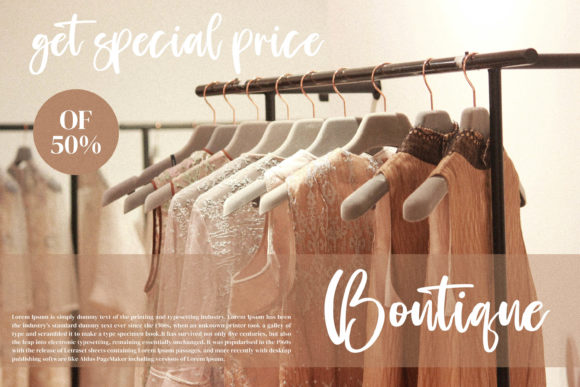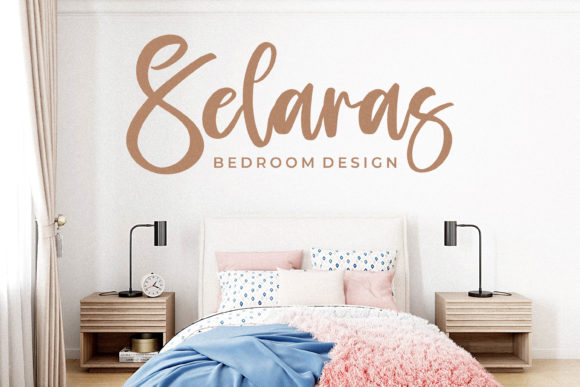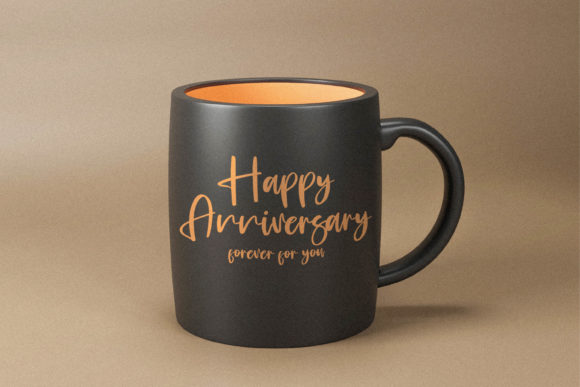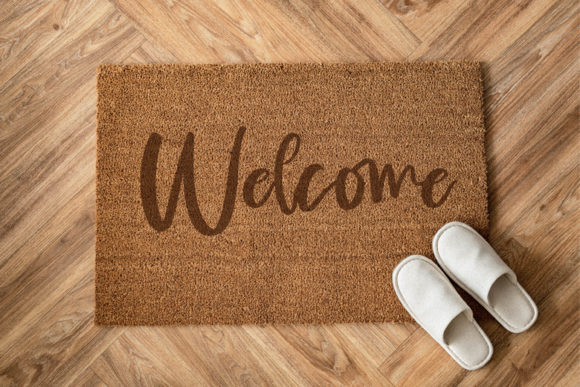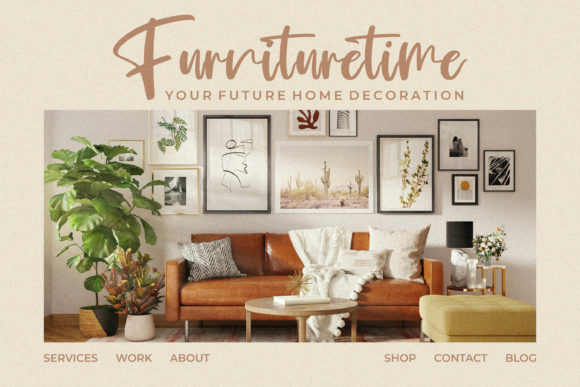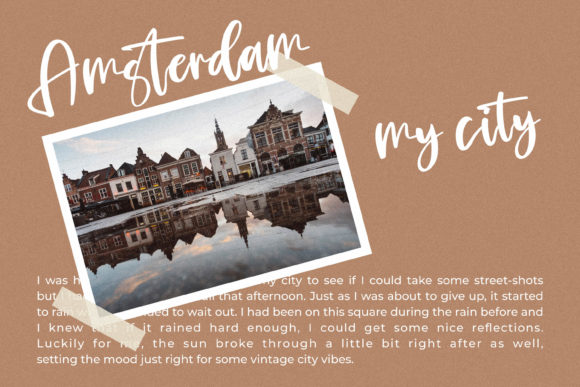
Introduction to Jarchook Font
Remember the moment when you stumbled upon that perfect design element that took your project to the next level? For many of us, it’s a feeling of excitement and satisfaction that comes with discovering a high-quality design resource that elevates our creative vision. For designers, this moment often involves the perfect font – one that embodies confidence, versatility, and style. If you’re looking for that elusive font that makes your project stand out, look no further than the Jarchook Font.
This chic, trendy script font is more than just a pretty face; it’s a valuable addition to any designer’s toolkit. With its stylish alternates and ligatures, Jarchook Font is the perfect match for any creative project, from logos to brochures, and everything in between.
Key Features of Jarchook Font
- Designed to be highly versatile, the Jarchook Font can be used for a variety of applications, from print materials to digital displays.
- Features a unique blend of modern and vintage elements, making it an excellent choice for designers seeking a distinctive look.
- Available in a single weight, making it easy to incorporate into your design without worrying about font pairing.
Honest Review: Jarchook Font
I recently came across the Jarchook Font, and I must say it’s a hidden gem for designers. This high-quality font is perfect for creative projects that require a touch of elegance and sophistication.
What works well with the Jarchook Font is its versatility. It can be used for a wide range of applications, from logos to titles, and even as a header font. I particularly love how it looks with a transparent background, adding a level of sophistication to any design. ✨
Here are some of the key features of the Jarchook Font:
- Perfect for logos, titles, and headers
However, I do have to mention a few limitations. The font may not be suitable for all types of projects, particularly those that require bold and playful typography. Additionally, the font may not be compatible with all operating systems. ⚠️
Overall, I’m impressed with the Jarchook Font. It’s a high-quality design resource that’s perfect for creative projects. With its versatility and elegant design, I highly recommend it to designers looking for a reliable font option.
Common Use Cases and Tips
The Jarchook Font is ideal for creative projects that require a unique and high-quality design resource. Some common use cases include:
– Logo design
– Branding materials
– Infographics
– Social media graphics